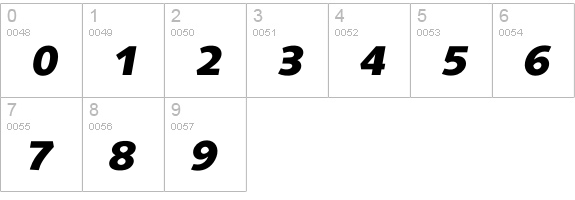
Isaxony Bold is a strong, high-contrast variant in the Isaxony typeface family \xE2\x80\x94 well suited to headlines, attention-grabbing titles, and strong calls-to-action.
Introducing Isaxony Bold, a captivating and versatile font that will add a touch of elegance and sophistication to any project. With its bold and commanding presence, Isaxony Bold is perfect for creating impactful headlines, eye-catching logos, and stunning branding materials. This typeface exudes confidence and strength, making it ideal for projects that require a strong visual impact. Its bold and thick strokes command attention, while the meticulous curves and clean lines add a touch of refinement. Isaxony Bold is a font that demands to be noticed. What makes Isaxony Bold even more appealing is the fact that it is freely available to download at FontsMarket.com. This means that you can bring this powerful and striking font into your designs without any cost. Whether you are a professional designer or a passionate hobbyist, Isaxony Bold provides you with the opportunity to elevate your creations without breaking the bank. With its clean and legible design, Isaxony Bold is also highly versatile. It can be used across a wide range of design projects, from print materials such as brochures, posters, and flyers, to digital platforms such as websites and social media graphics. No matter the medium, Isaxony Bold will make a lasting impression. The attention to detail in Isaxony Bold is evident in its carefully crafted letterforms. Each character is meticulously designed to ensure readability and aesthetic appeal. The bold weight is perfectly balanced, making it easy to read even at smaller sizes. The result is a font that is not only visually striking but also highly functional. Whether you are creating a daring advertisement, a striking poster, or a captivating logo, Isaxony Bold is the font that will make your designs stand out. Its bold and commanding presence, coupled with its versatility and readability, makes it the perfect choice for any project. Don't miss the opportunity to enhance your designs with Isaxony Bold. Visit FontsMarket.com today and download this stunning font for free. Elevate your creations and captivate your audience with the power of Isaxony Bold.